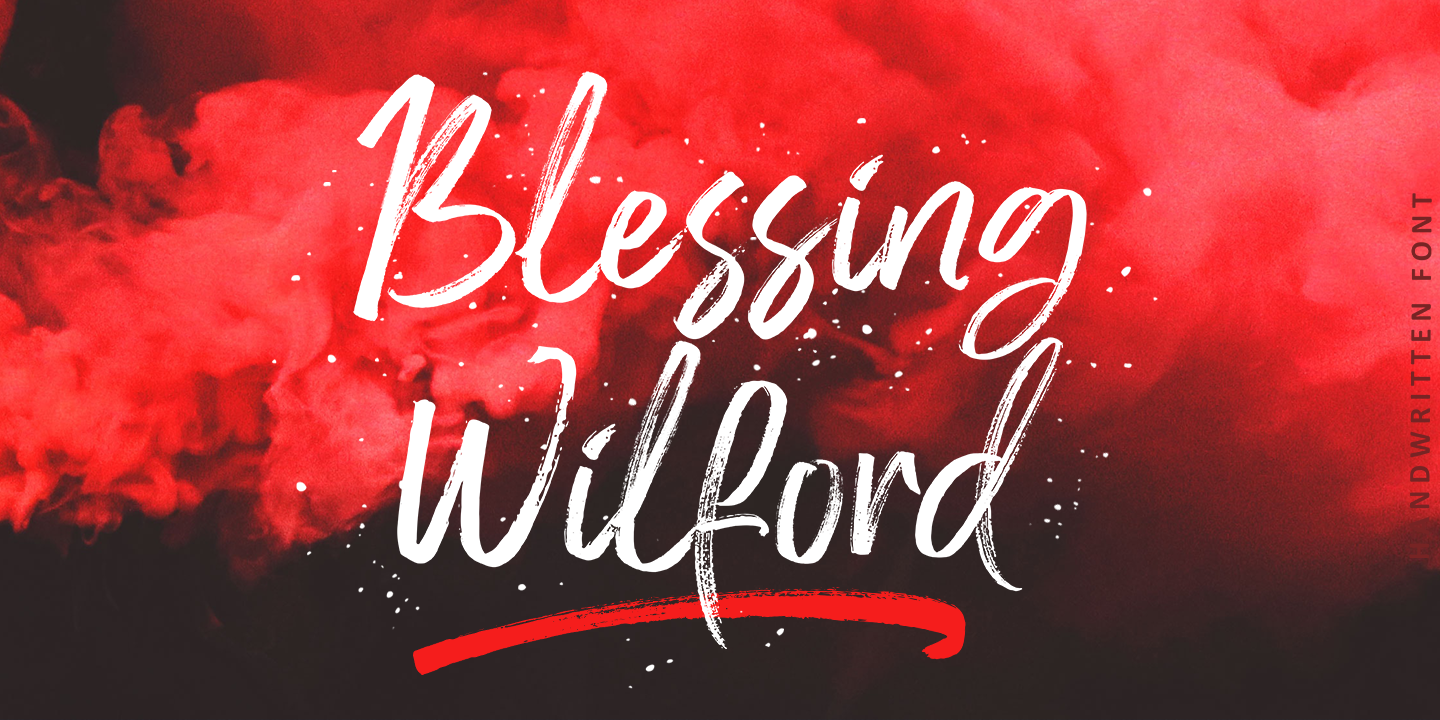
Blessing Wilford Brush Font Free Download is a dynamic and expressive brush script typeface that brings an artistic flair to your designs. Its hand-painted style adds a personal and authentic touch, making it perfect for logos, invitations, packaging, and creative projects needing a lively spirit.
This font’s bold brush strokes convey energy and passion while maintaining readability, giving your work a distinctive edge. Blessing Wilford Brush Font Free Download effortlessly enhances projects that require a casual yet impactful appearance.
Infuse your designs with character and vibrancy using Blessing Wilford Brush Font Free Download. If you want a font that combines creativity with professionalism, this font is your perfect match.